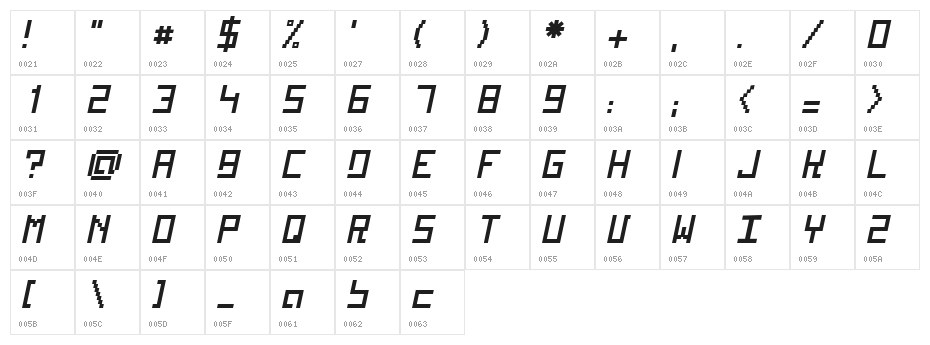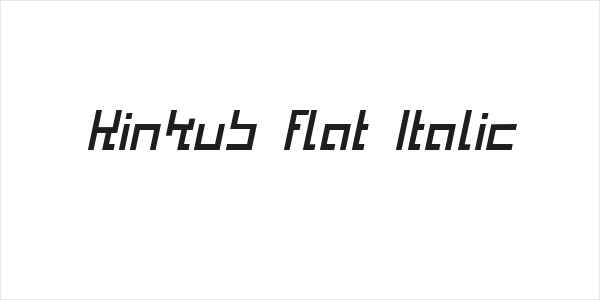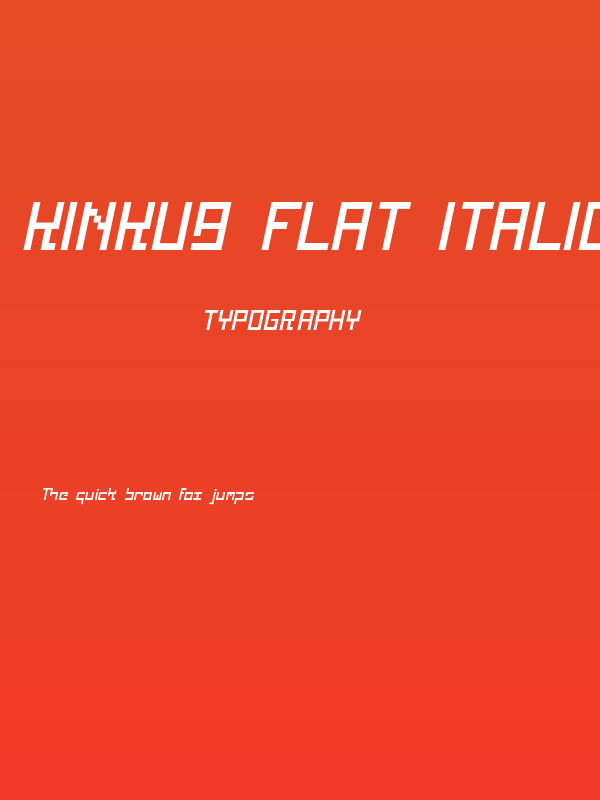
Kinkub flat Italic Font
Kinkub flat Italic Description
This font features a bold, angular design with a distinctly modern and futuristic aesthetic. The characters are constructed with sharp, geometric lines, giving it a digital or tech-inspired look. The italic style adds a dynamic, forward-leaning appearance, enhancing its sense of motion and energy. Each letter maintains a consistent height, with uniform stroke thickness throughout, contributing to a cohesive and structured feel. The numbers and special characters follow the same angular and bold design, ensuring visual harmony across all elements.